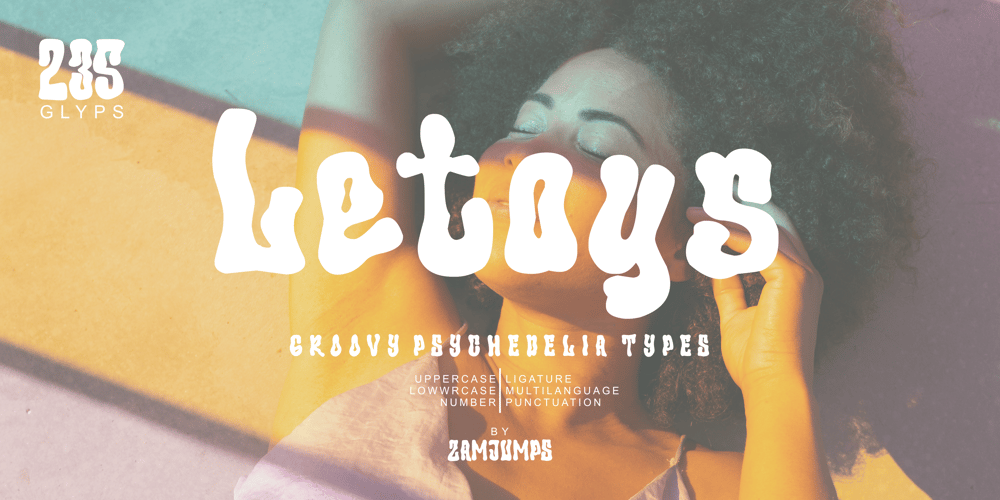
Letoys Font Family was designed by Zamjump and published by Zamjump. Letoys contains 1 styles and family package options. Letoys are inspired by 70s typography with a touch of psychedelic and retro vibes. This type is perfect for creating posters, magazine layouts, brand logos, sleeve covers, party flyers, quotes, or simply as a stylish text overlay on any background image.